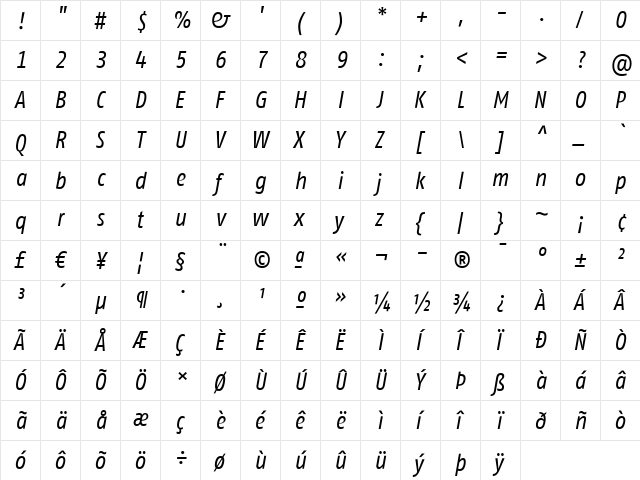
FagoCoTf Italic
FagoCoTf offers clean, dependable letterforms without strong stylistic allegiance, making it a practical choice for designers who need flexibility. The slanted form adds forward momentum and visual energy.
Pro Tip: Use FagoCoTf for emphasis, pull quotes, and subheadings where its slanted energy can add rhythm to the layout.